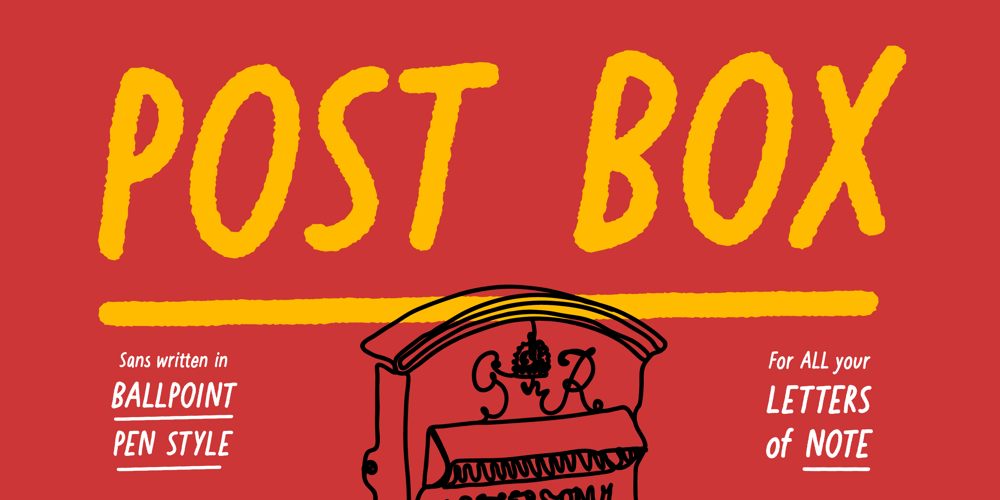
Post Box
Post Box font
Post Box Font Family was designed by Daniel Feldt and published by Great Scott. Post Box contains 2 styles and family package options. Written in a ballpoint pen style POST BOX is a neighborly sans serif is slightly condensed and slanted. Scribbled quickly but readable. Exact but still human. Perfect for print, package and display use. You can also use it in shorter paragraph text.